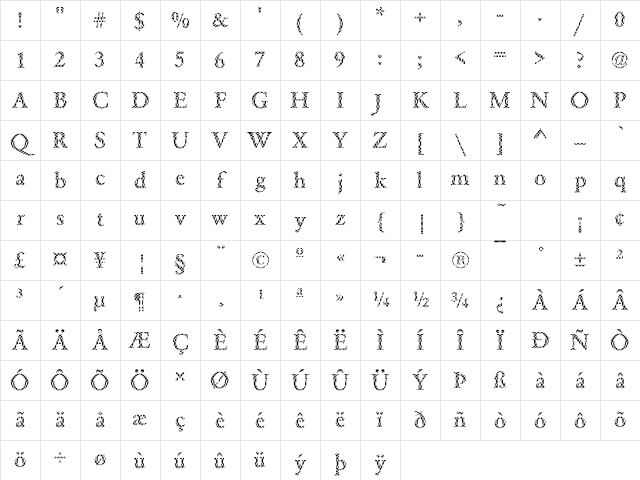
Complete Garamond36 Becker Regular glyph index. Displaying only characters natively supported by Garamond36 Becker Regular font.
Garamond36 Becker is a composed and adaptable typeface that performs quietly and consistently across a wide range of design contexts.